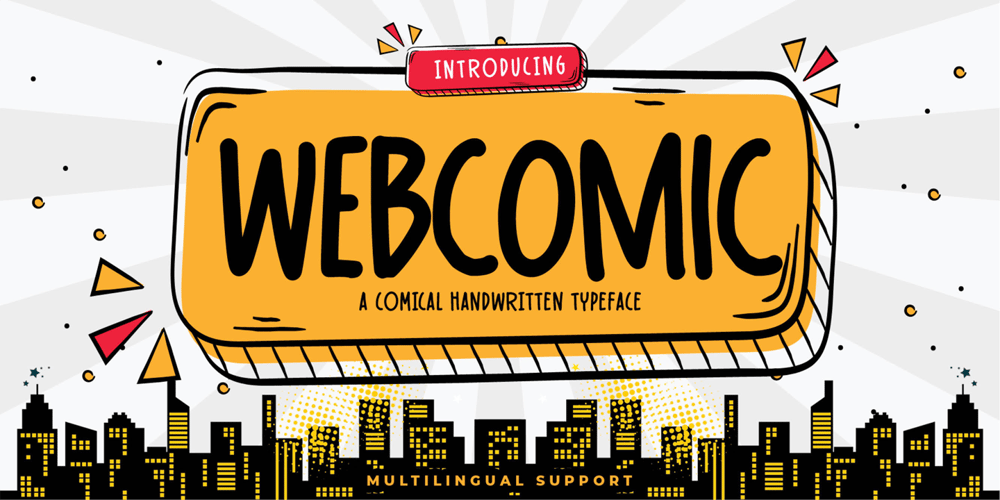
Webcomic Font Family was designed by Abdul Malik Wisnu, Anang Fibriyanto and published by Gassstype. Webcomic contains 1 styles and family package options. Webcomic – Comical Handwritten Typeface Font that will make your designs look modern, unique and fun. It’s perfect for labels, quotes, posters, DIY projects, branding, packaging, greeting cards, websites, photography overlays, signs, window art, scrapbooking, tags and so much more!